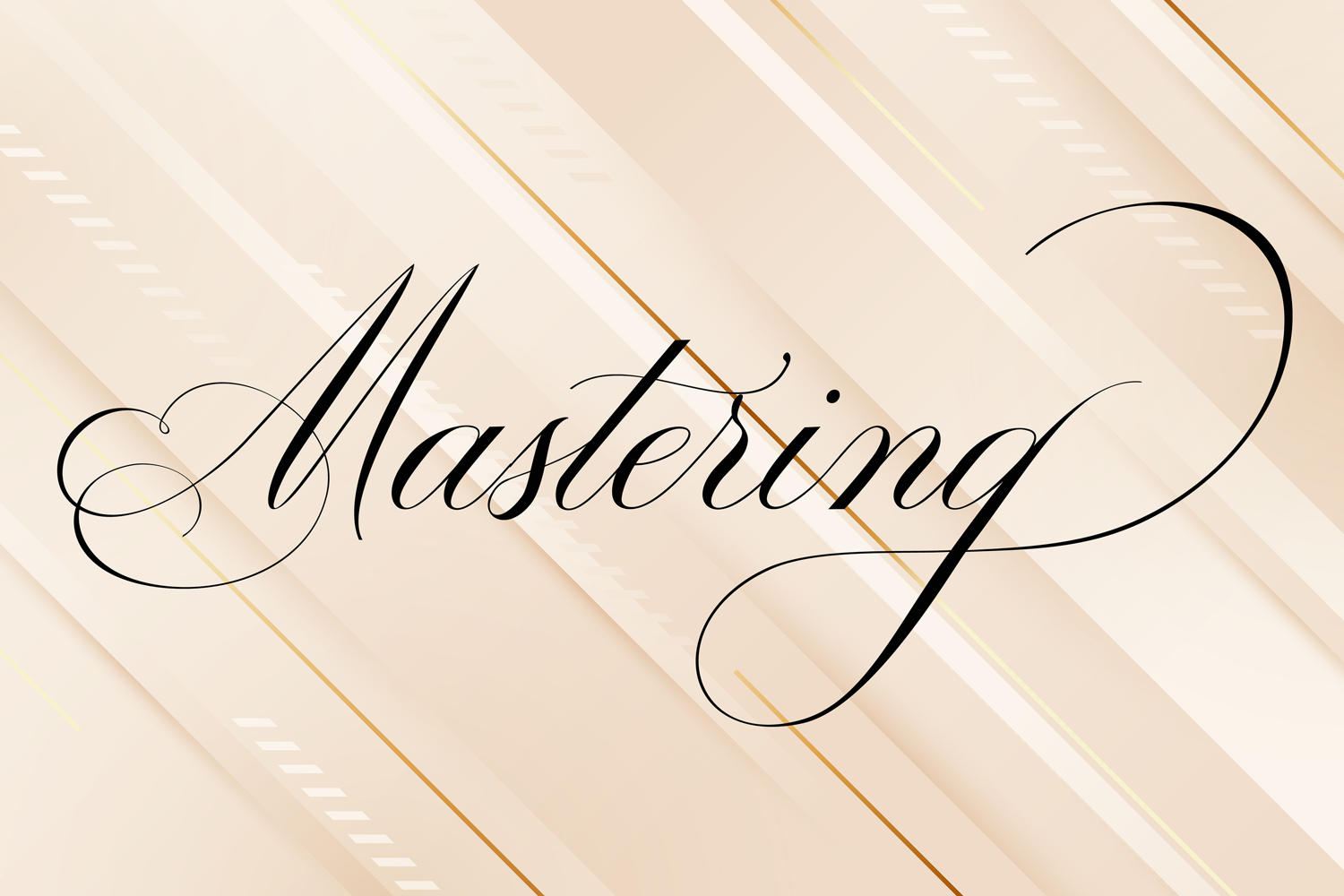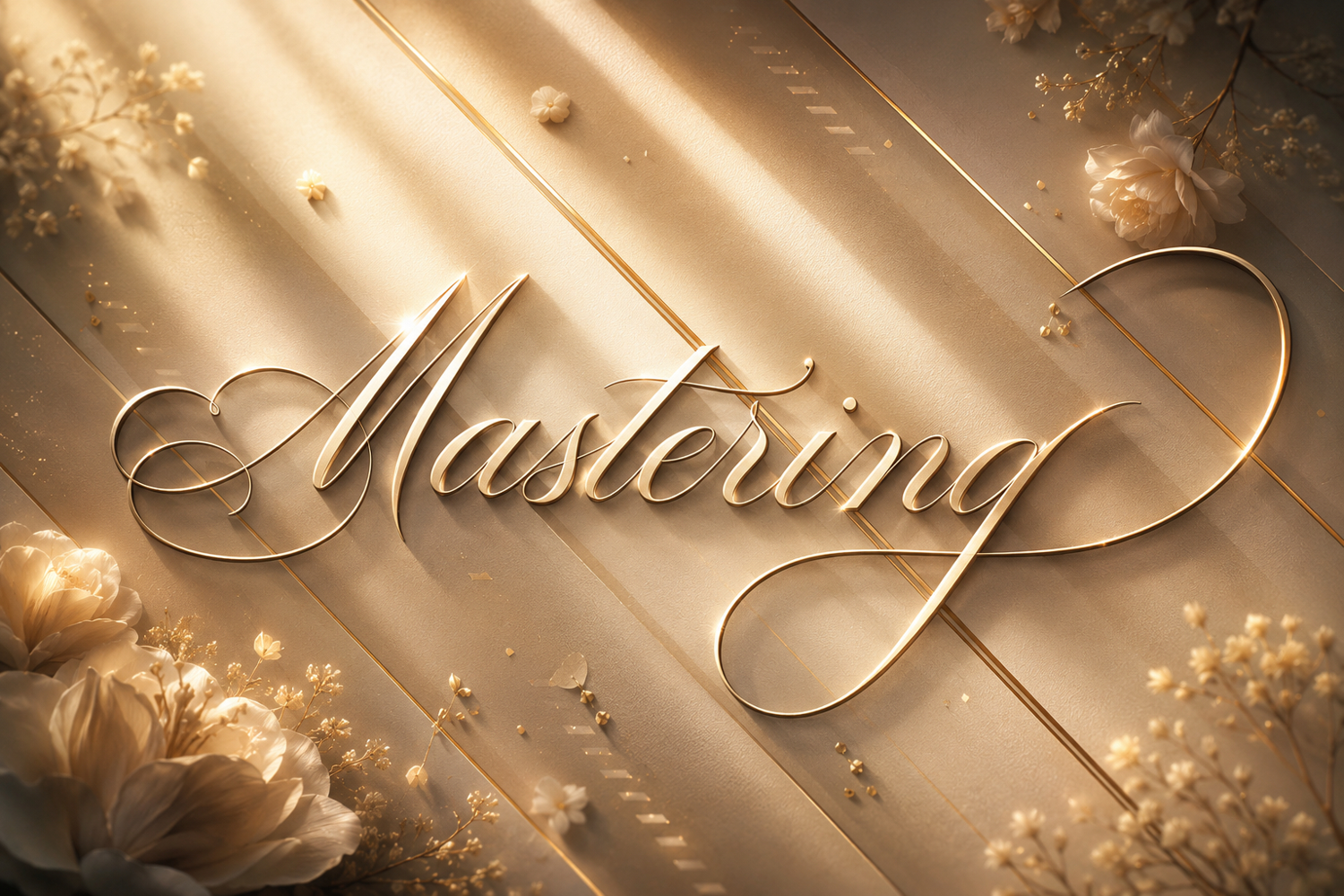
Mastering
Mastering is Classic calligraphy design, including Regular and Slant. This font is casual and pretty with swashes. Can used for various purposes. such as logo, product packaging, wedding invitations, branding, headlines, signage, labels, signature, book covers, posters, quotes and more.
Mastering features OpenType stylistic alternates, ligatures and International support for most Western Languages is included. To enable the OpenType Stylistic alternates, you need a program that supports OpenType features such as Adobe Illustrator CS, Adobe Indesign & CorelDraw X6-X7, Microsoft Word 2010 or later versions.How to access all alternative characters using Adobe Illustrator: